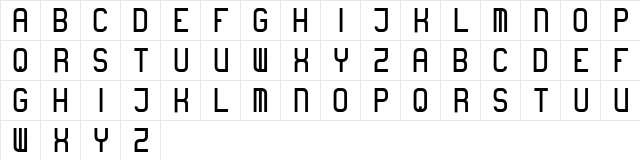
boring Regular
Design Context for boring Typeface
boring takes a measured approach to typography — its balanced proportions and neutral character make it a reliable workhorse for both digital and print work.